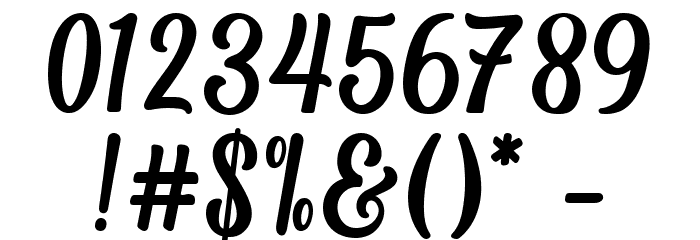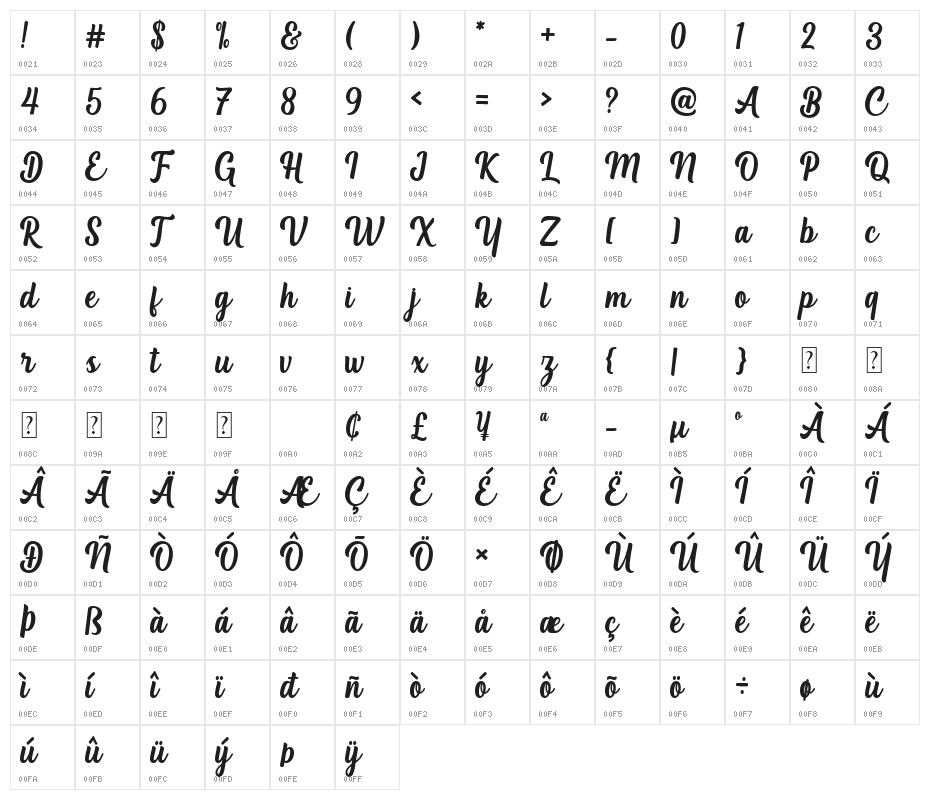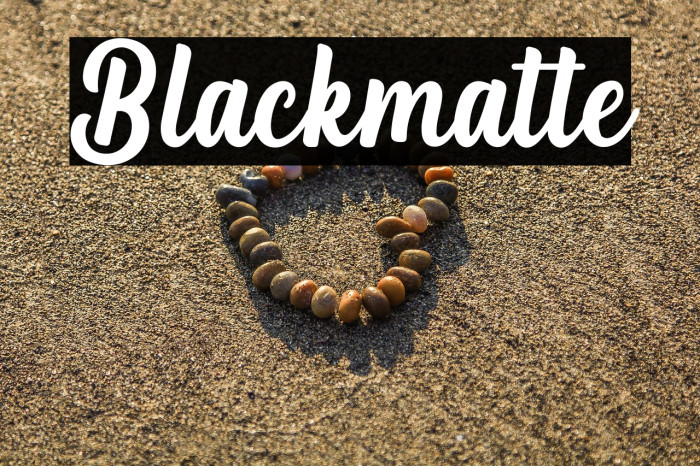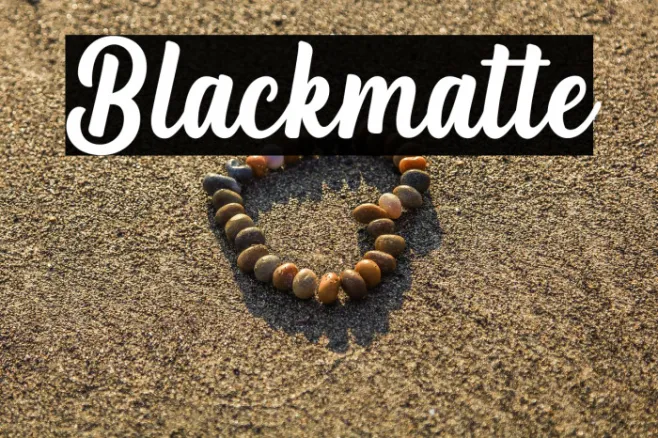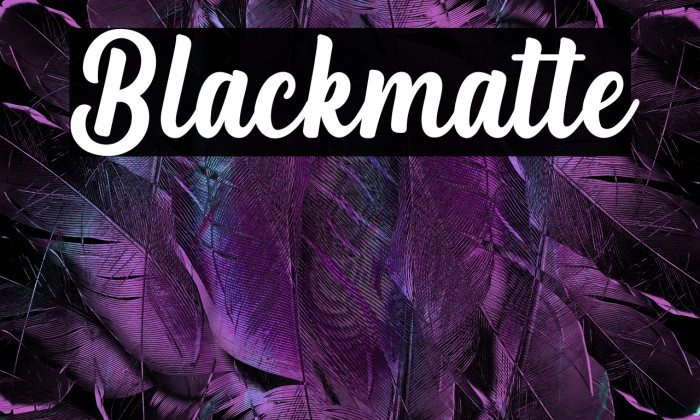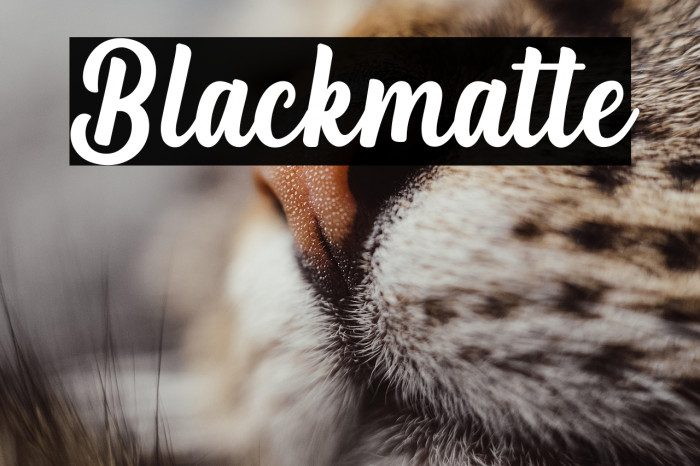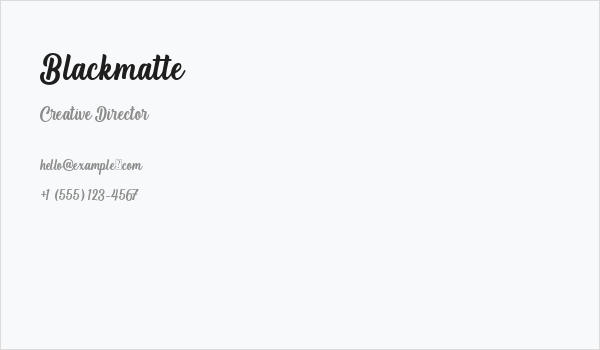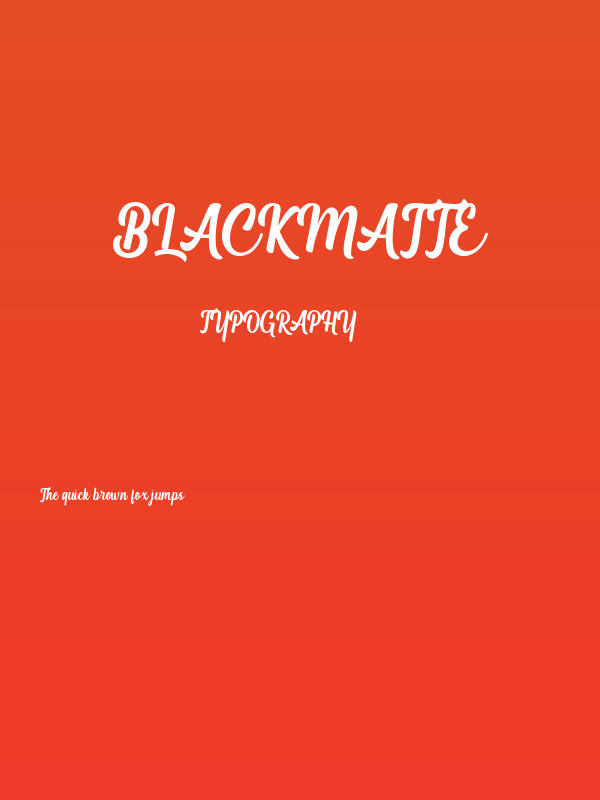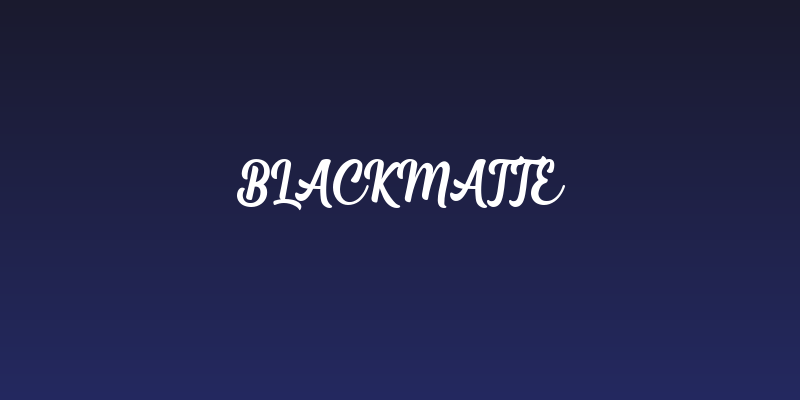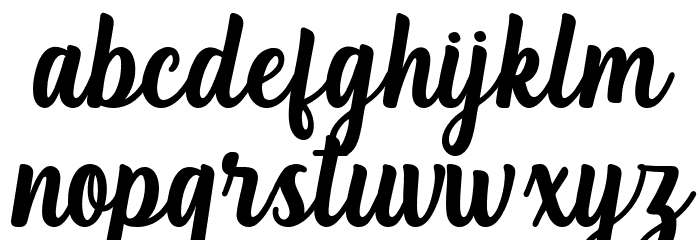
Blackmatte Font
Blackmatte Description
This font features a bold and flowing script style, characterized by its smooth, cursive strokes and elegant curves. The uppercase letters are slightly larger and more pronounced, while the lowercase letters maintain a consistent flow, enhancing readability. The numerals are distinct and align well with the overall script style, adding a touch of sophistication. Special characters are thoughtfully designed to complement the letters, ensuring a cohesive look. This font exudes a sense of modern elegance, making it suitable for various creative applications.